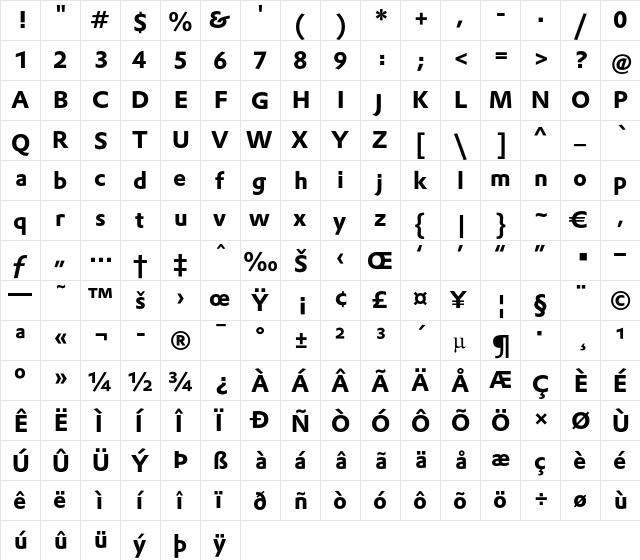
DTLProkyonT Regular
Design Context for DTLProkyonT Typeface
DTLProkyonT offers clean, dependable letterforms without strong stylistic allegiance, making it a practical choice for designers who need flexibility.